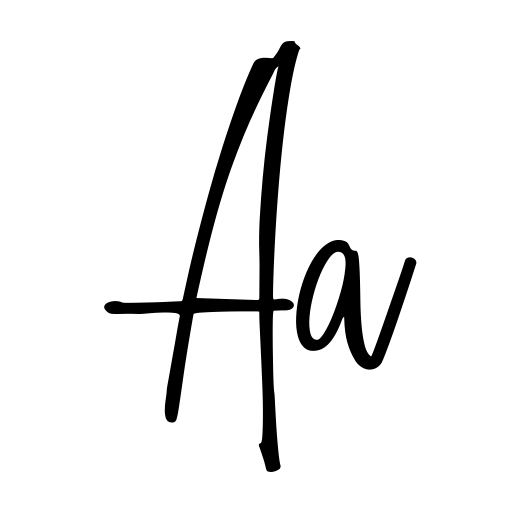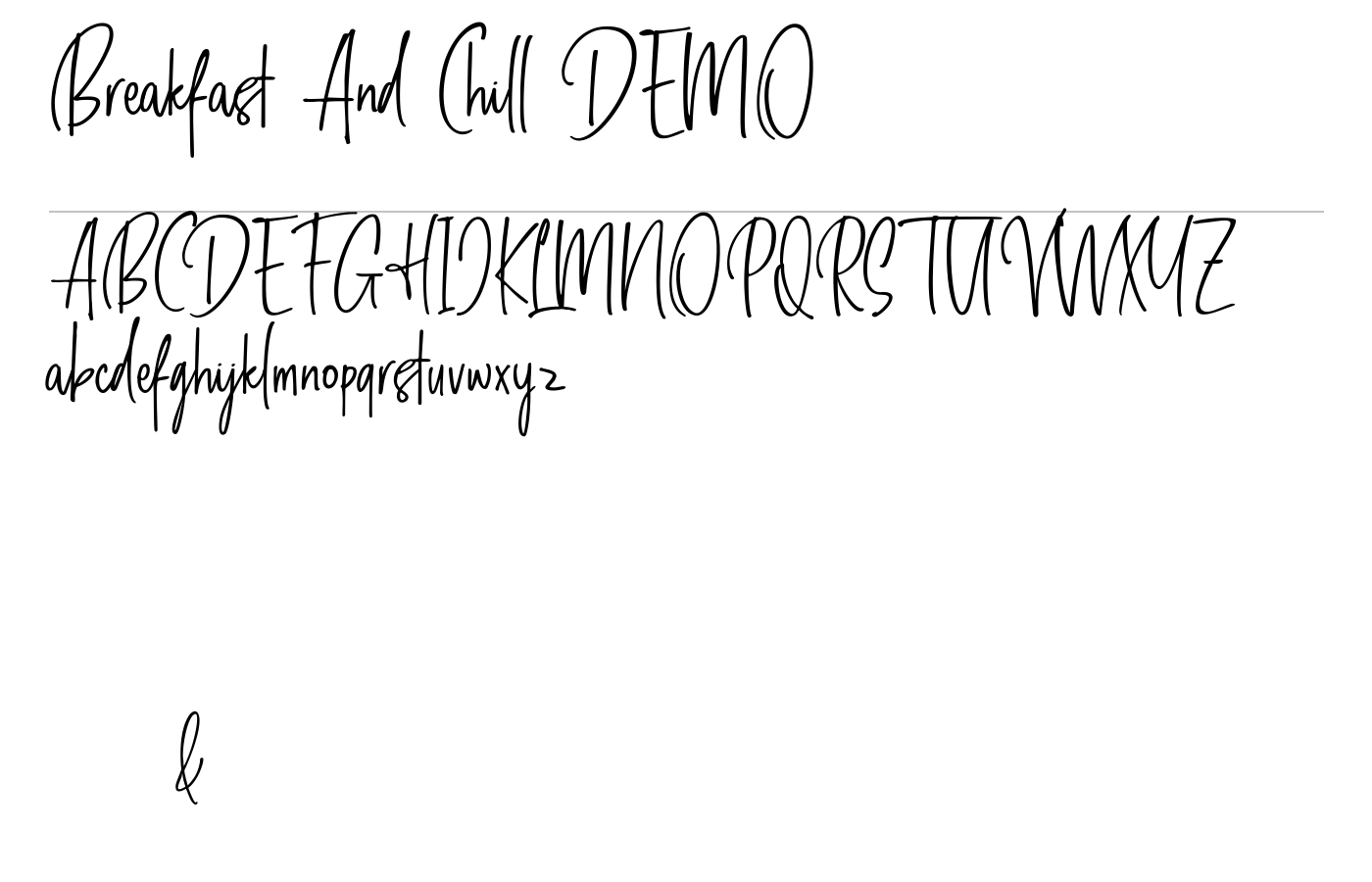
Breakfast And Chill DEMO is a slender, casual handwritten script font with tall, narrow letterforms that evoke a relaxed yet stylish vibe. Its fine, flowing strokes and organic, slightly irregular shapes give it a personal and approachable feel, making it perfect for branding, invitations, or editorial projects that want to convey warmth and modern elegance. This font works well for designs seeking a light, airy aesthetic with an informal and friendly personality.
Breakfast And Chill DEMO Font
About Breakfast And Chill DEMO Font